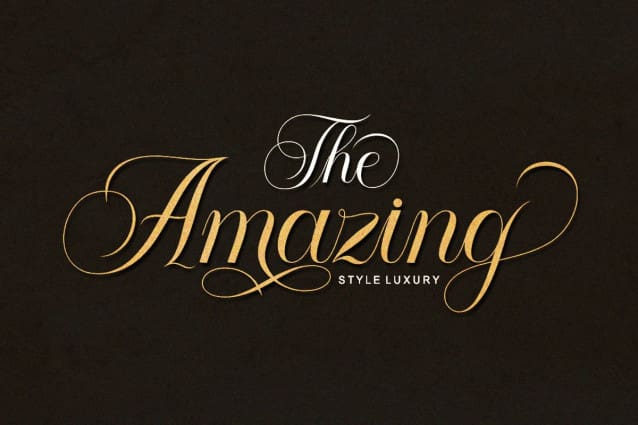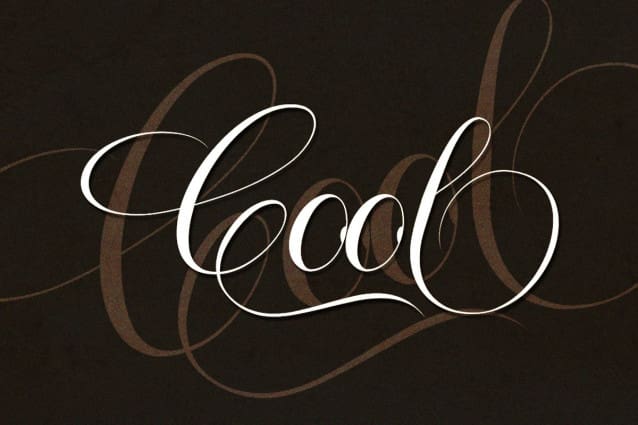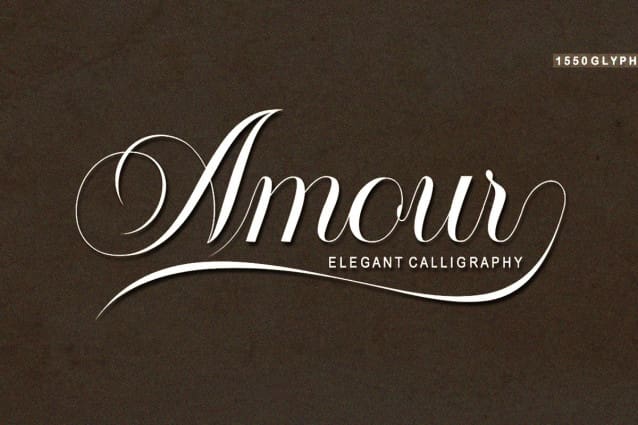
Amour Calligraphy Font
Amour Calligraphy Font is a calligraphy script font that comes with beautiful alternate characters. copper plate mix calligraphy with handlettering style. Designed to convey stylish elegance. Amour Script is attractive as a typeface that is smooth, clean, feminine, sensual, glamorous, simple and very easy to read. Classic style is very suitable to be applied to all types of formal items such as invitations, labels, menus, logos, fashion, make up, stationery, letterpress, romantic novels, magazines, books, greeting / wedding cards, packaging, labels, and others.
Amour Calligraphy features 1550+ glyphs and 1320 alternate characters. including multiple language support. It features OpenType with style alternatives, character binding and strokes, which allows you to mix and match letter pairs to match your designs, as well as a touch of ornament to make this font look elegant.
Amour Calligraphy ! Amour has now been to include 4 styles; bold/bold italic version, regular & italic version. This gives you the option to completely change your font style with the click of a mouse, whether you’re looking for a smoother style, a bold version, or an italic finish.